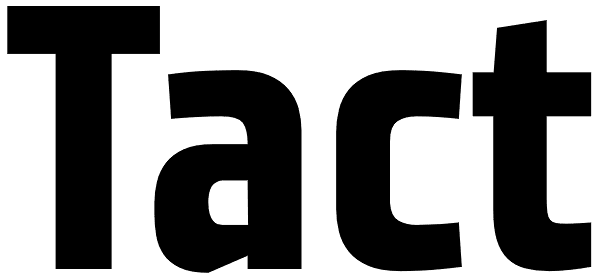
Tact
Tact is a geometrically sans serif font, black and condensed looking glyphs, with an alternative glyph set to improve its use in different graphic contexts. It is suitable for use in the fields of science, art, architecture, urban planning...